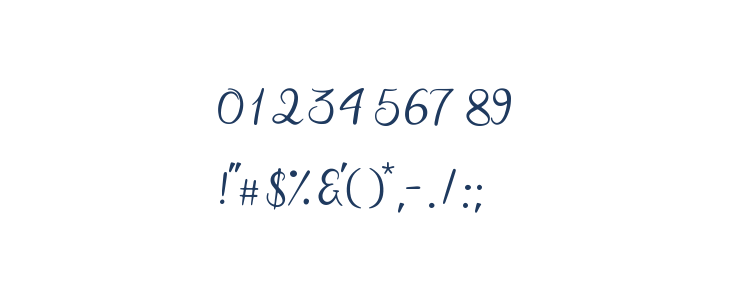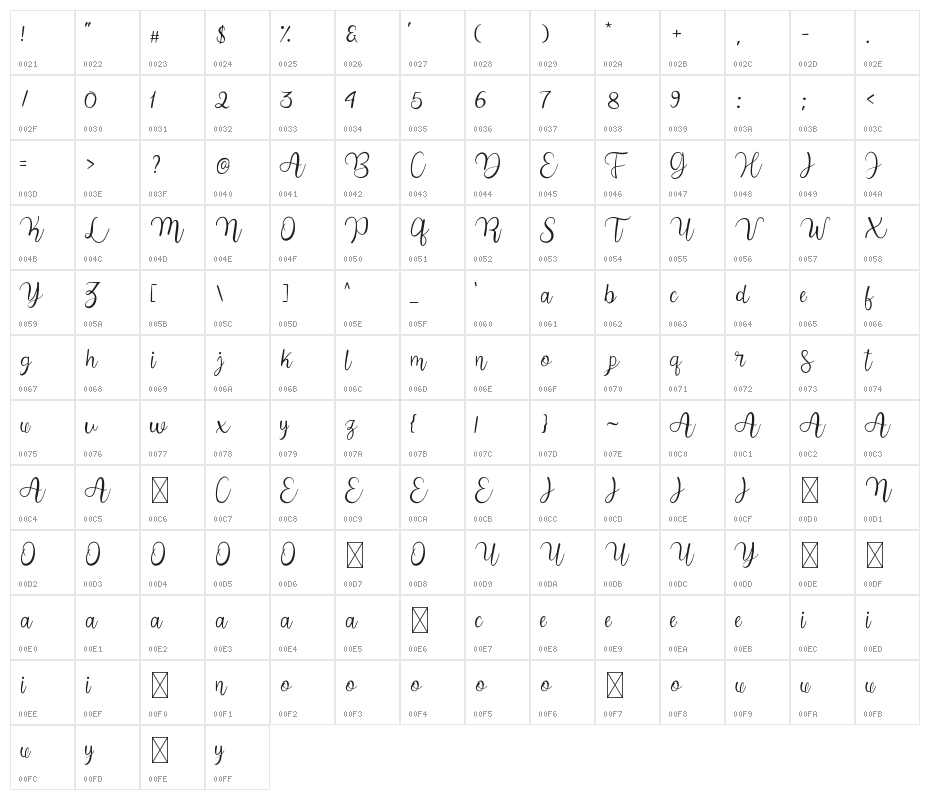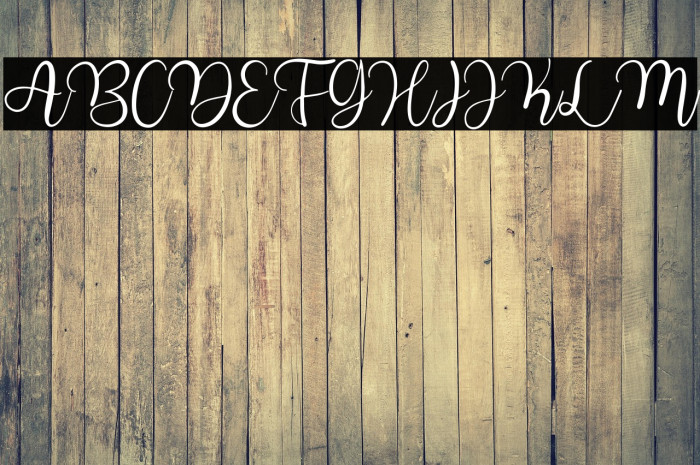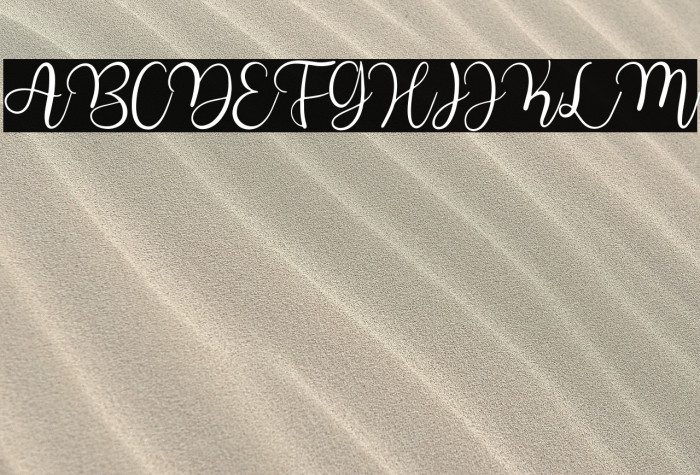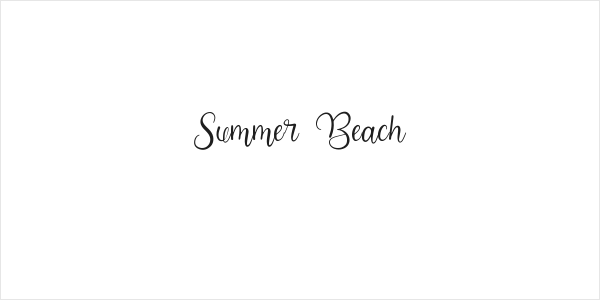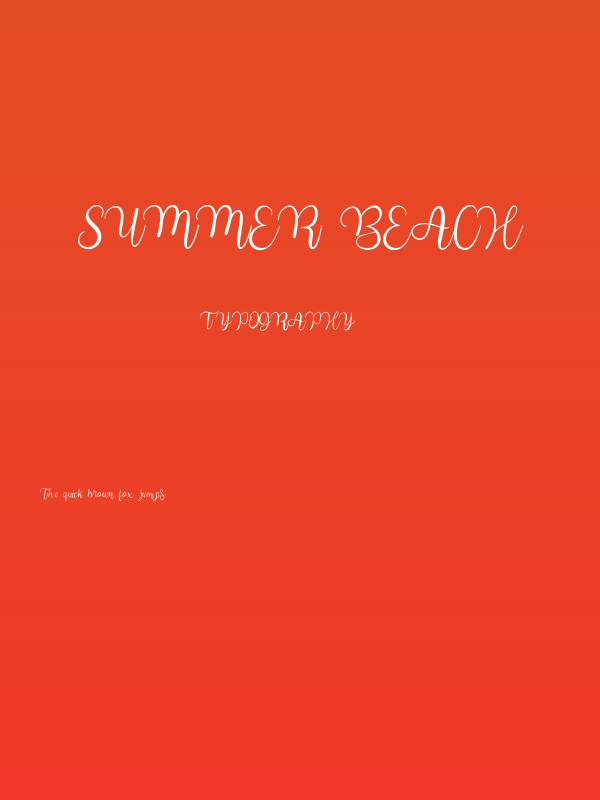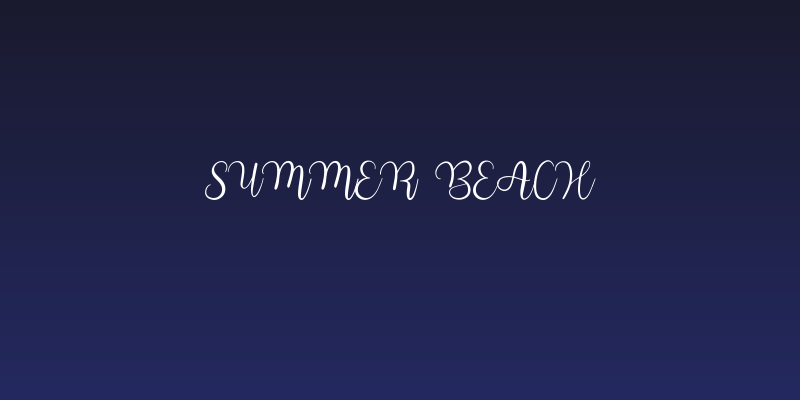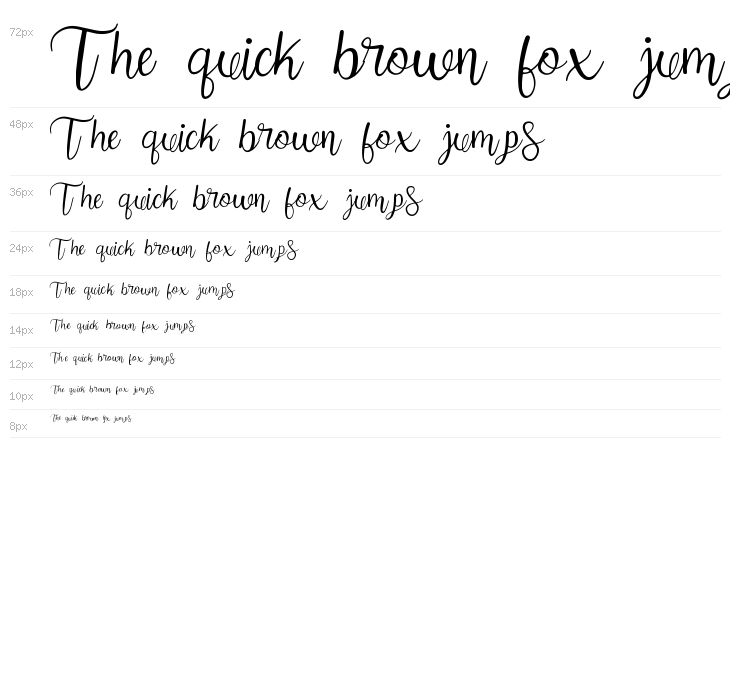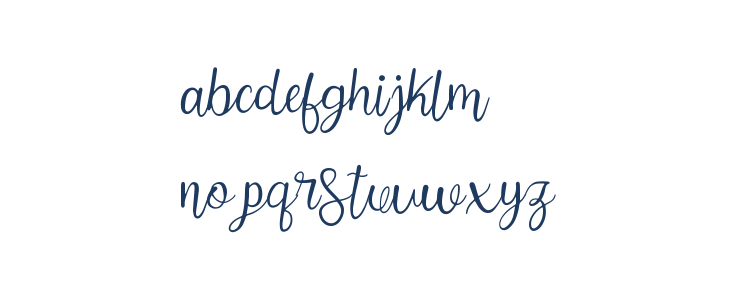
This font features a playful and elegant script style, characterized by its flowing, cursive letters that mimic a handwritten aesthetic. The uppercase letters are slightly more elaborate, with loops and swirls that add a touch of sophistication. The lowercase letters maintain a consistent flow, creating a harmonious look. The numerals are clear and easy to read, while the special characters complement the overall style with their smooth curves and lines. This font exudes a casual yet refined vibe, making it suitable for a variety of creative applications.
| Use Case | Logos, Invitations, Social Media |
| Proposed Projects | Ideal for wedding invitations, greeting cards, branding projects, and social media graphics. |